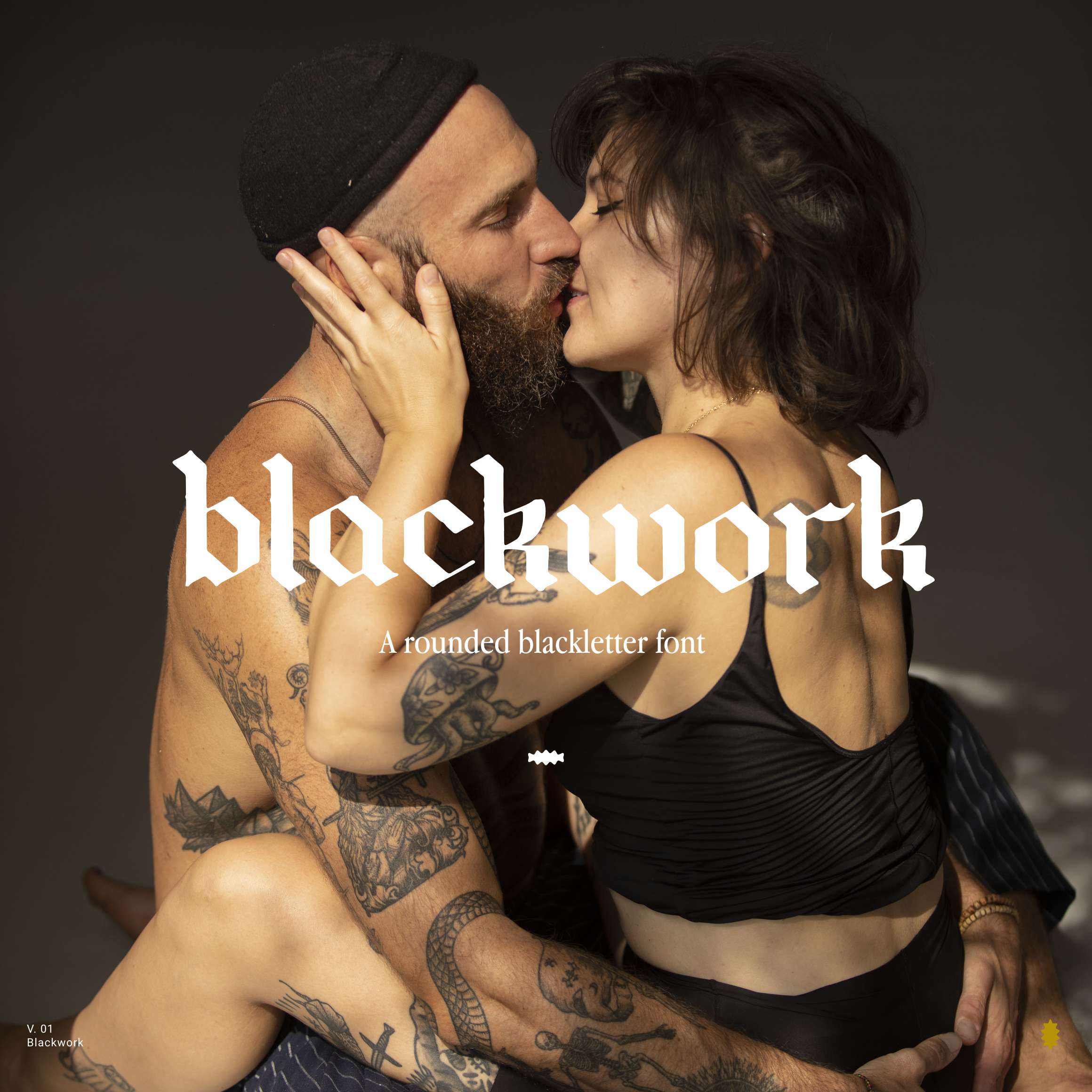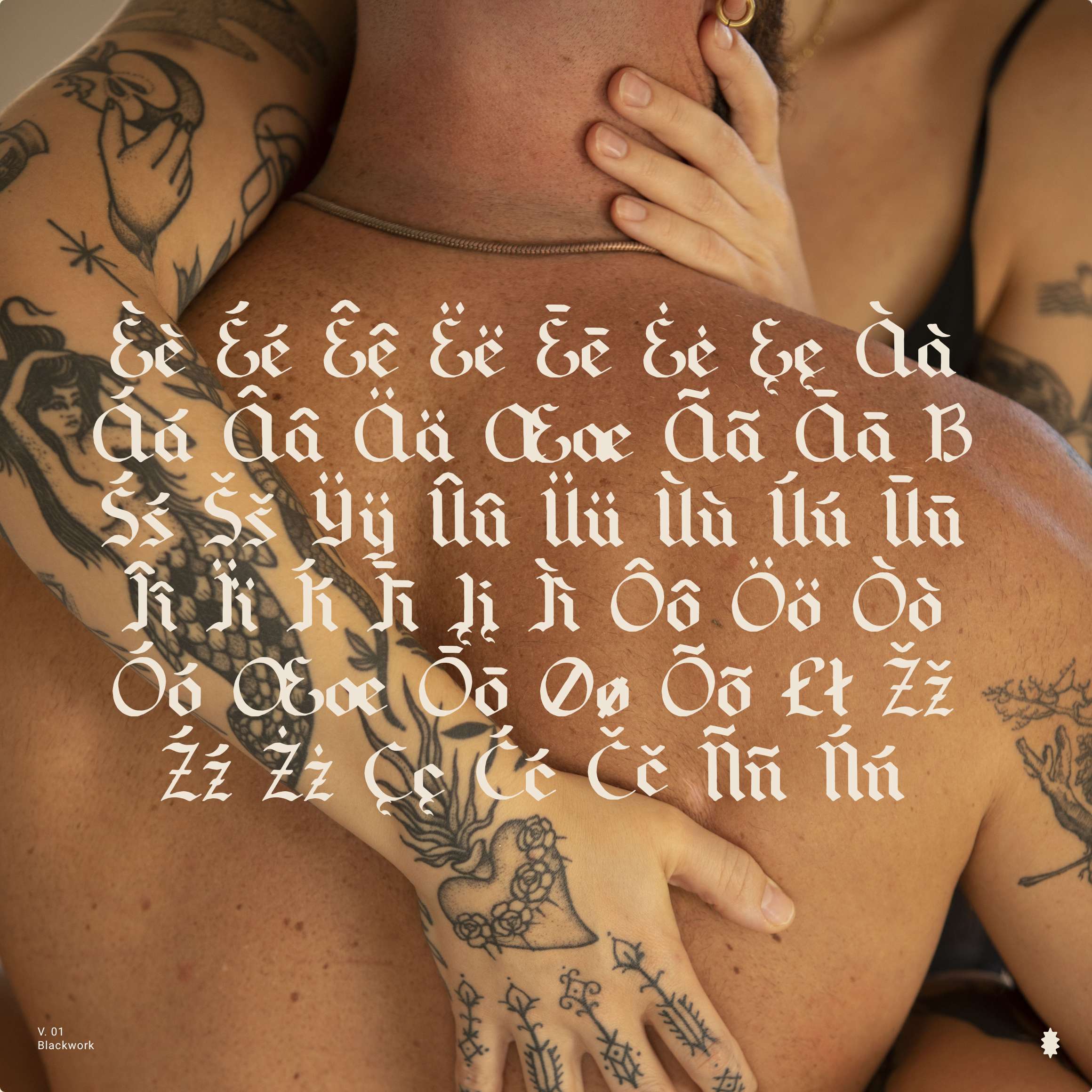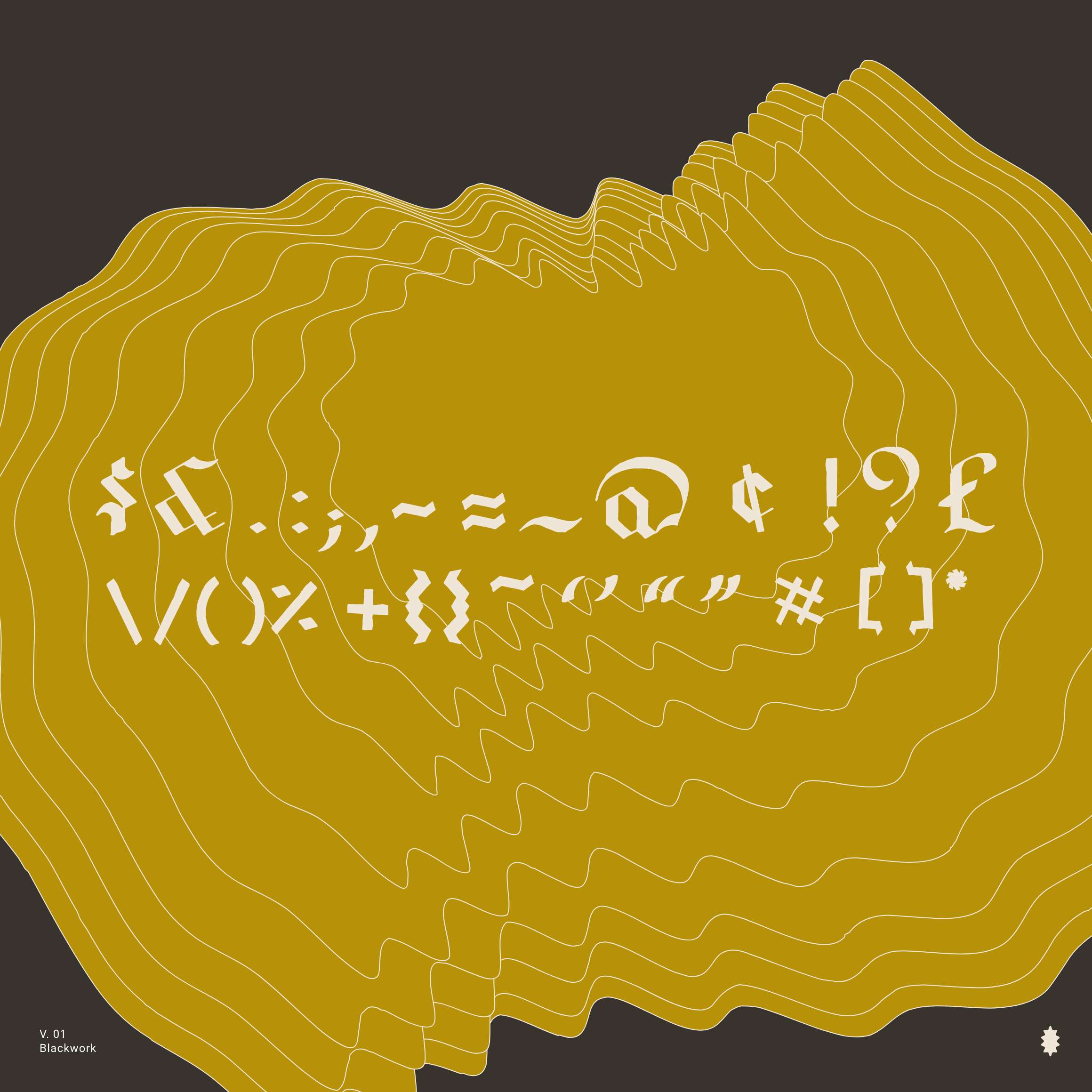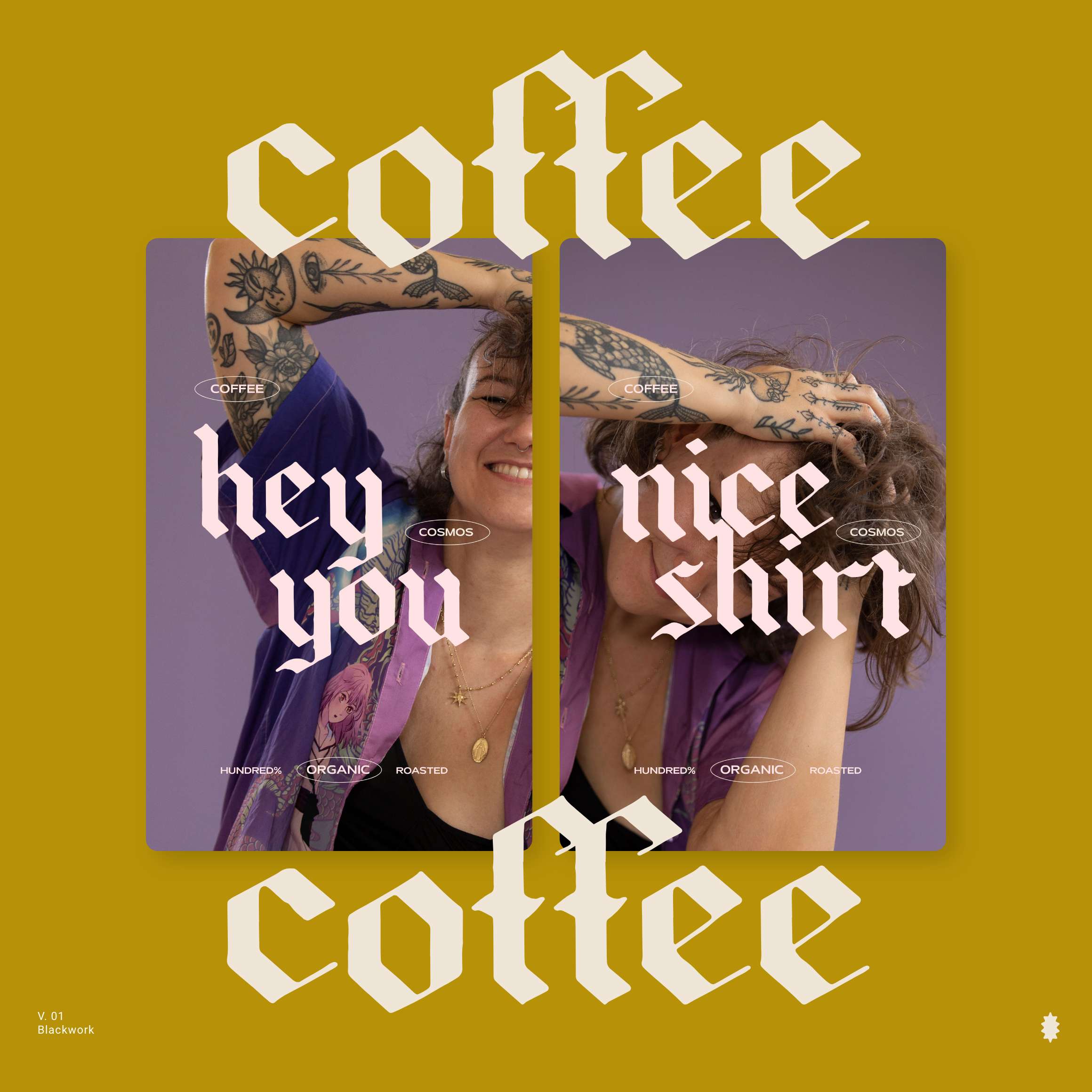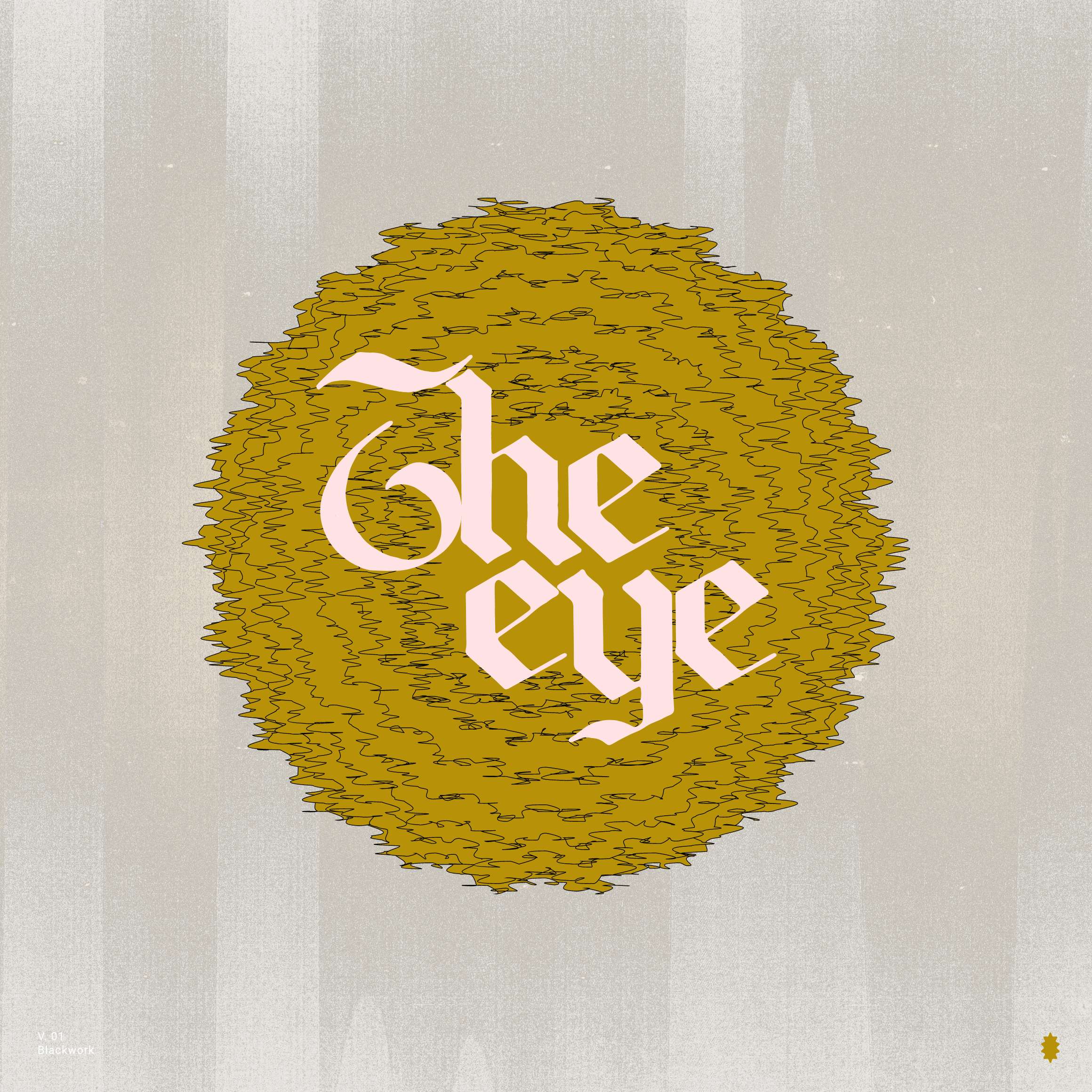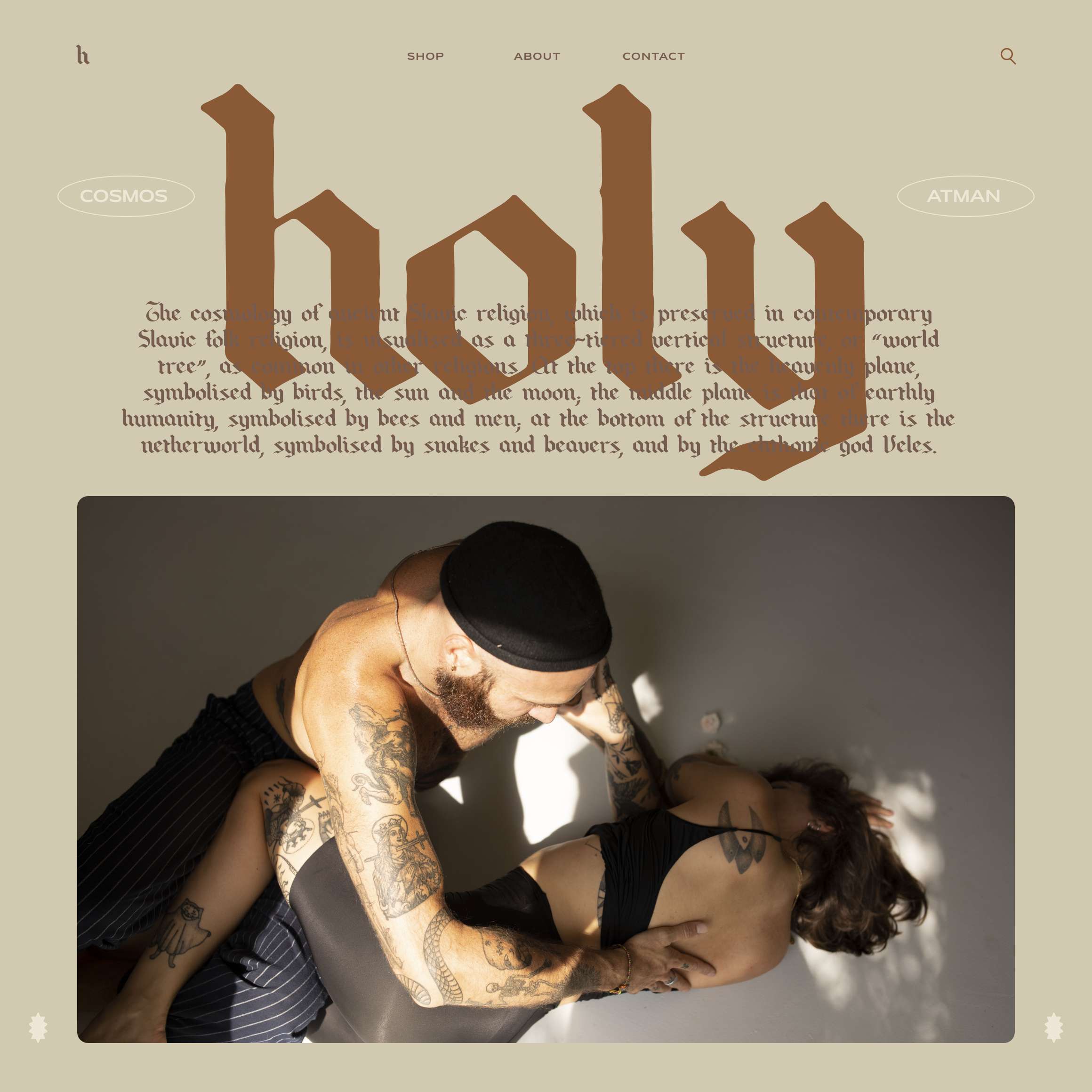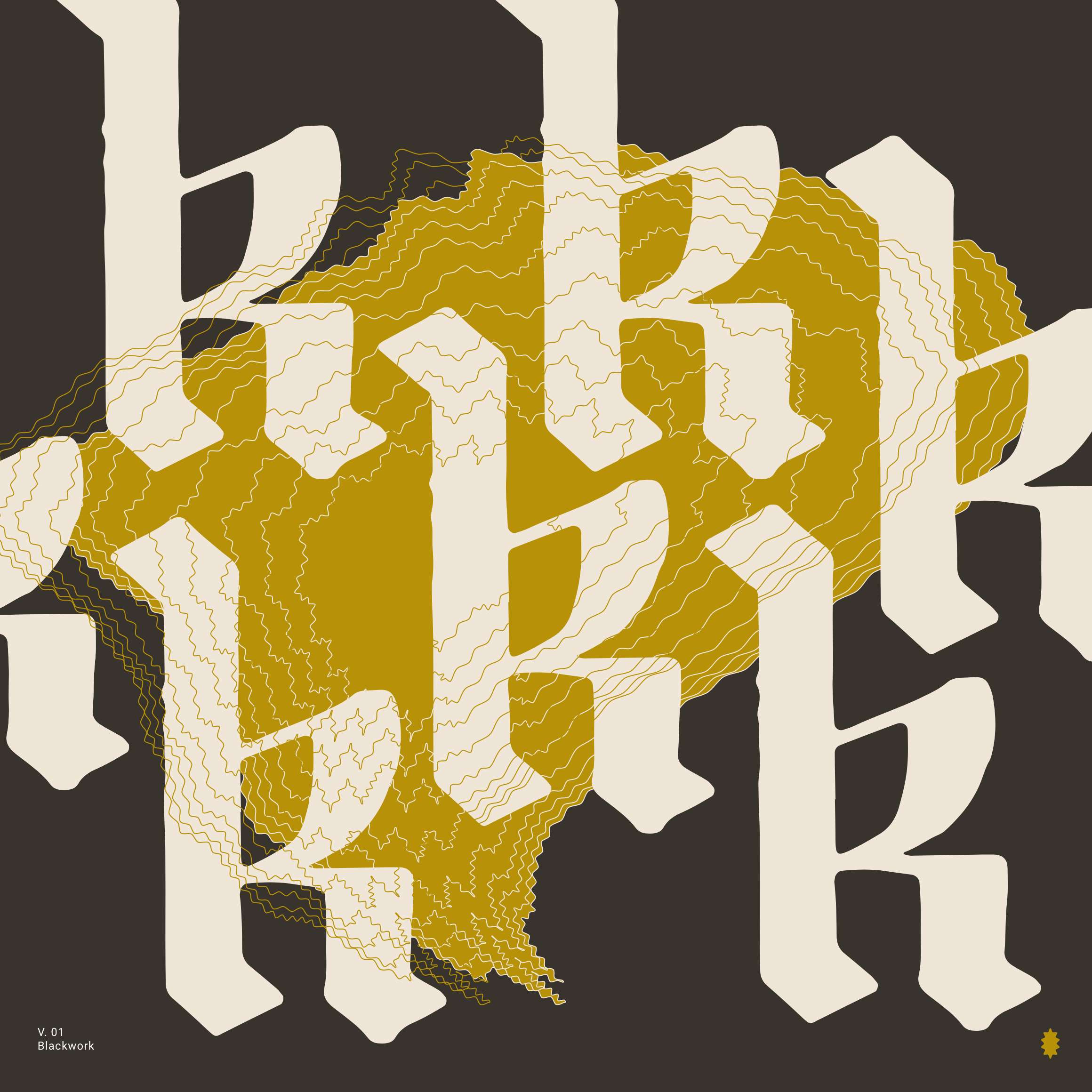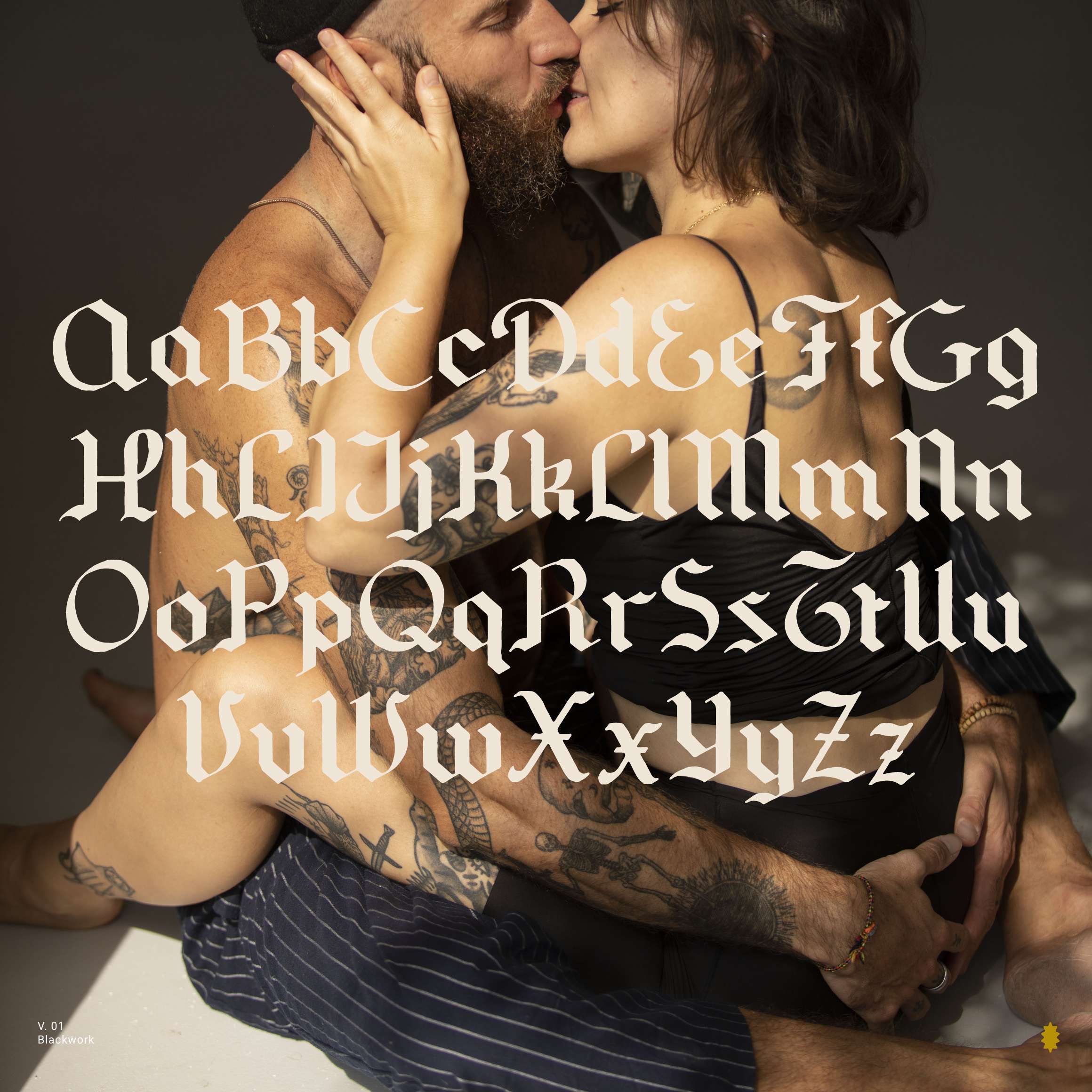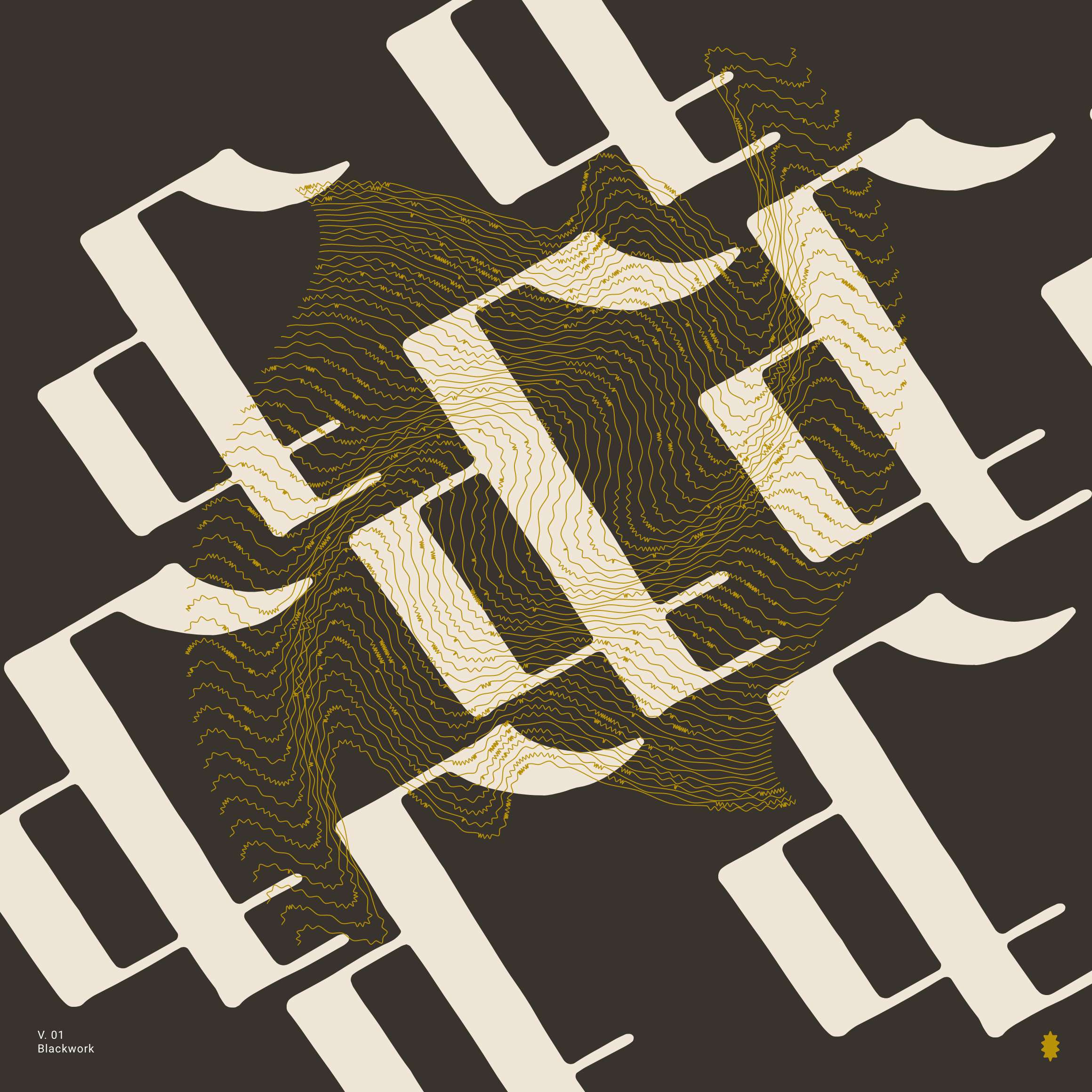
Blackwork Font
Introducing Blackwork, the bold and beautiful blackletter font that will take your designs to the next level. With its rounded look and natural, handwritten feel, this font is perfect for those who want to make a statement with their typography.
Blackwork is a versatile font that can be used for a wide range of design projects, from logos and branding to invitations and social media graphics. Its bold and striking appearance commands attention, while its rounded edges give it a soft and approachable feel.